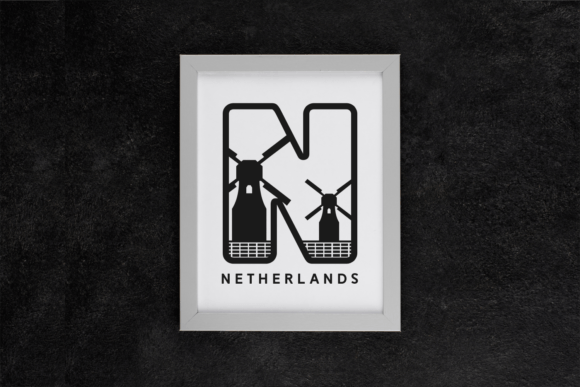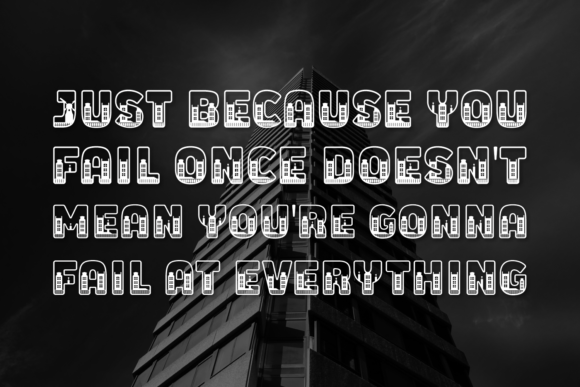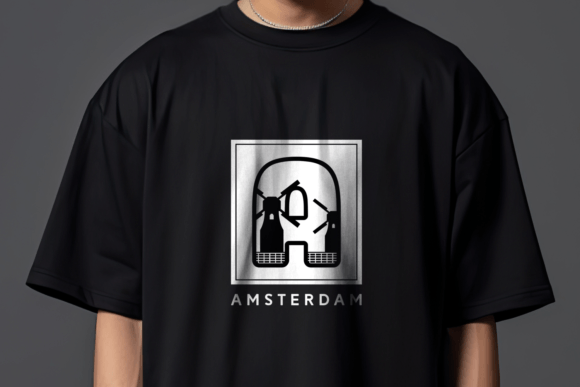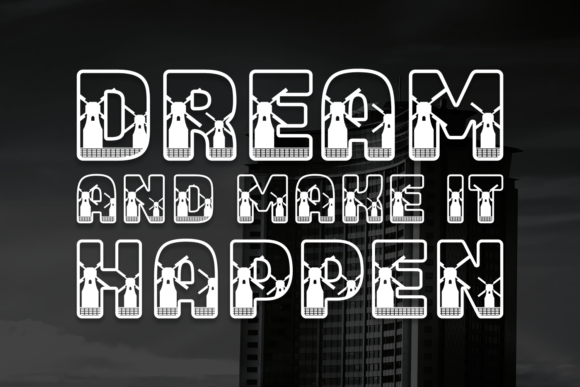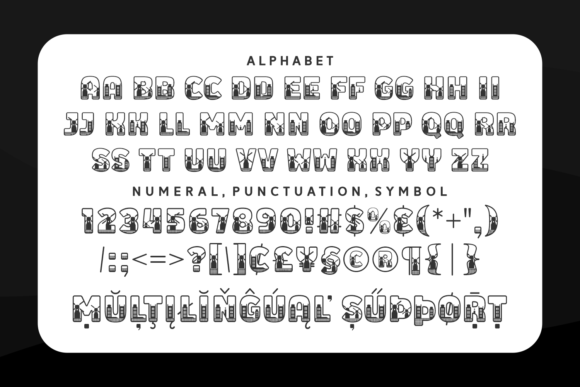
Introduction to Orderly City Font
As designers, we’ve all been there – staring at a blank canvas, searching for that perfect font to bring our creative vision to life. And then, it hits us – the perfect font that adds an extra layer of depth and meaning to our project. For me, that moment came when I stumbled upon the Orderly City Font, a fun and stylish decorative font that turns each letter into a mini city skyline.
Imagine being able to add a touch of urban sophistication to your design with just a few clicks. That’s exactly what the Orderly City Font offers – a unique and versatile design resource that’s perfect for creative projects that need a high-quality, urban touch.
Key Features of Orderly City Font
- Orderly City Font features a transparent background, making it ideal for use on any design surface.
- Designed to be highly legible, with clear and concise letterforms that make it perfect for body text and titles.
- The font family consists of 12 styles, ranging from light to bold, providing flexibility for various design needs.
- Resolution-independent, making it suitable for use in print and digital applications at high resolutions.
- Pixel-perfect, ensuring that the font remains crisp and clear at any size, from small to large.
Honest Review: Orderly City Font
As a designer, I’m always on the lookout for high-quality fonts to elevate my creative projects. The Orderly City Font is a recent discovery, and I’m excited to share my thoughts on it.
- ✨ High quality design: The Orderly City Font has a crisp, clean look that’s perfect for modern designs.
- ✨ Transparent background: The font has a transparent background, making it easy to use with any design element.
- ⚠️ Limited font styles: While the Orderly City Font is a great addition to any design project, it’s limited to a few font styles, which might not be suitable for every design need.
- ⚠️ Not ideal for complex text: Due to its clean design, the Orderly City Font might not be the best choice for complex text or designs that require a lot of text.
Overall, I’m impressed with the Orderly City Font. While it has some limitations, its high quality design, free download, and transparent background make it a valuable design resource. I’d definitely recommend it for designers working on modern, creative projects.
How to Use Orderly City Font
Tips for Getting the Most Out of Orderly City Font
To get the most out of this high-quality font, use it with a transparent background to create a clean and modern design. Experiment with different font sizes and styles to add depth and visual interest to your project.
Common Use Cases for Orderly City Font
The Orderly City Font is a versatile design resource that can be used in a variety of creative projects, including logos, brochures, posters, and social media graphics.
Best Practices for Using Orderly City Font
Remember to use the Orderly City Font consistently throughout your design to create a cohesive and professional look. With its clean and modern design, this font is sure to elevate your creative project to the next level.
Alternatives to Orderly City Font
Open Sans is a highly versatile and legible font that is perfect for a wide range of creative projects. It’s a great design resource for those looking for a clean and modern feel. It’s available for free download and comes in a variety of weights and styles.
When to use: Open Sans is ideal for body text, headings, and titles in digital and print media. It’s a great choice for designers who want a high-quality font that is easy to read.
Comparison to Orderly City Font: Open Sans has a similar modern feel to Orderly City Font, but it’s more versatile and comes in a wider range of weights and styles.
Montserrat is a sans-serif font that is inspired by the urban landscape of South America. It’s a great choice for designers who want a high-quality font with a gritty, urban feel. It’s available for free download and comes with a transparent background.
Does the Orderly City Font have a transparent background?
Yes, the Orderly City Font has a transparent background, making it ideal for use on images with complex backgrounds or for creating custom designs with a seamless look. The font’s transparent background also allows for easy layering and compositing in design applications.